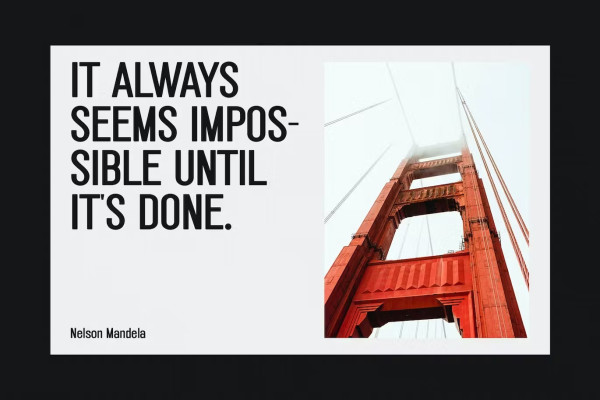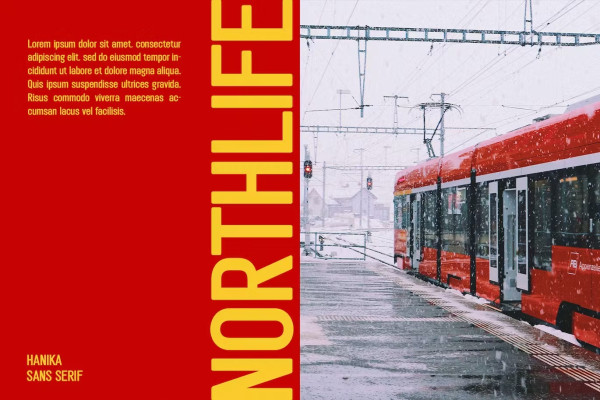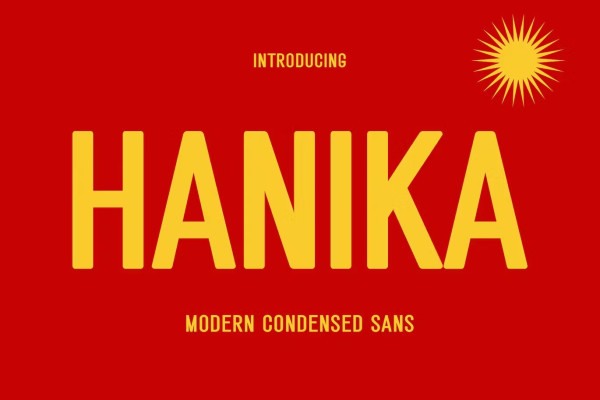
Hanika Font
Hanika Font, modern sans serif font with elegant style this is perfect for branding, logos, invitation, magazines, product packaging and more.